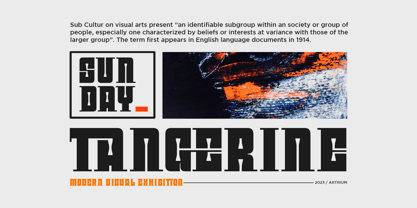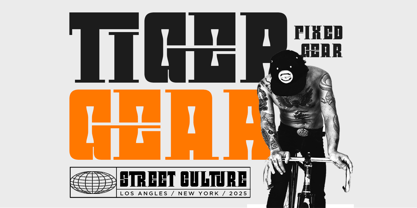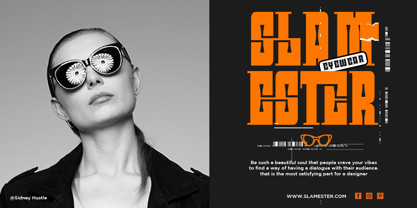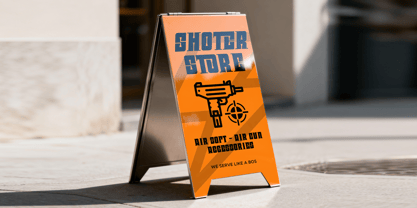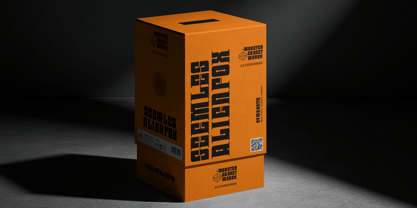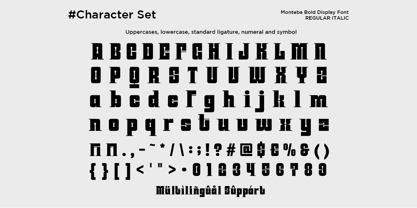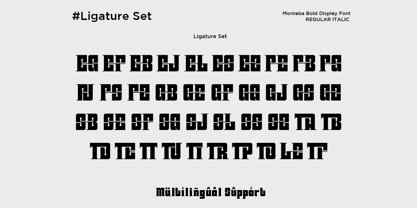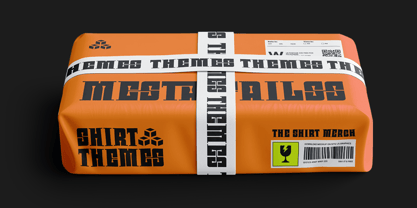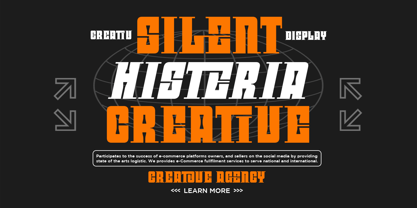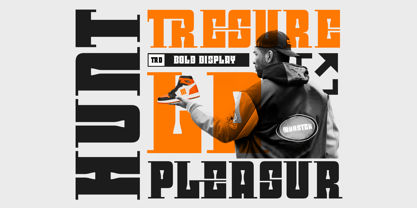
Monteba
La familia tipográfica Monteba fue diseñada por Mussyayin y publicada por Say Studio. Monteba contiene 2 estilos y opciones de paquete familiar. Más información sobre esta familia
Monteba is a bold and expressive display typeface built for designs that demand attention. Its strong letterforms, distinctive proportions, and striking visual structure create a confident look that blends vintage character with a modern graphic edge.
Designed for impactful typography, Monteba works beautifully branding, fashion campaigns, posters, editorial layouts, album artwork, packaging, signage, logos, labels, and promotional graphics. Its commanding shapes make headlines feel powerful while maintaining a refined and carefully crafted appearance.
With Regular and Italic styles, multilingual support, and a versatile ligature set, Monteba gives designers plenty of room to experiment with bold typographic compositions. Whether you're creating a retro-inspired identity, contemporary fashion artwork, or statement poster design, Monteba brings a strong visual personality to every project.